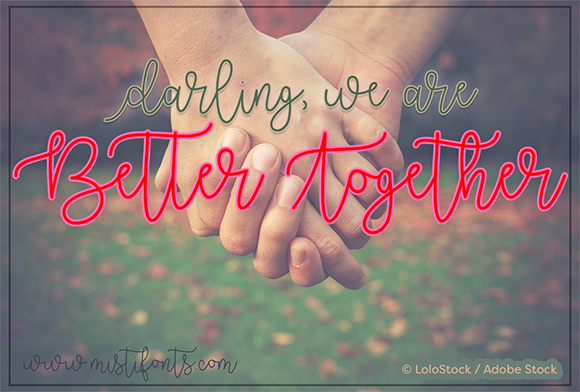
Better Together is a bouncy, cursive font with lots of personality (fontonality?) and is perfect for your design and craft projects!
If you type an asterisk (*) before a lowercase letter, it gives you a leading stroke (see the word “darling” in the poster).